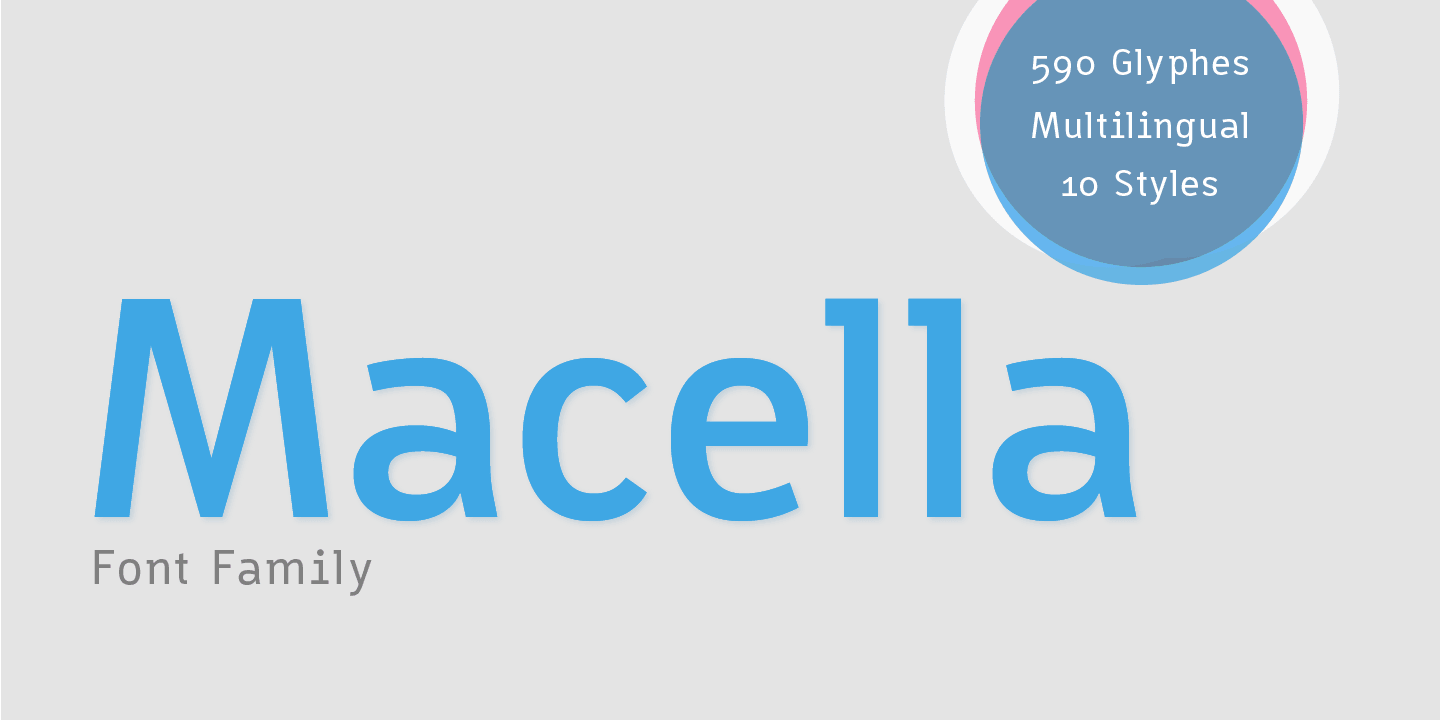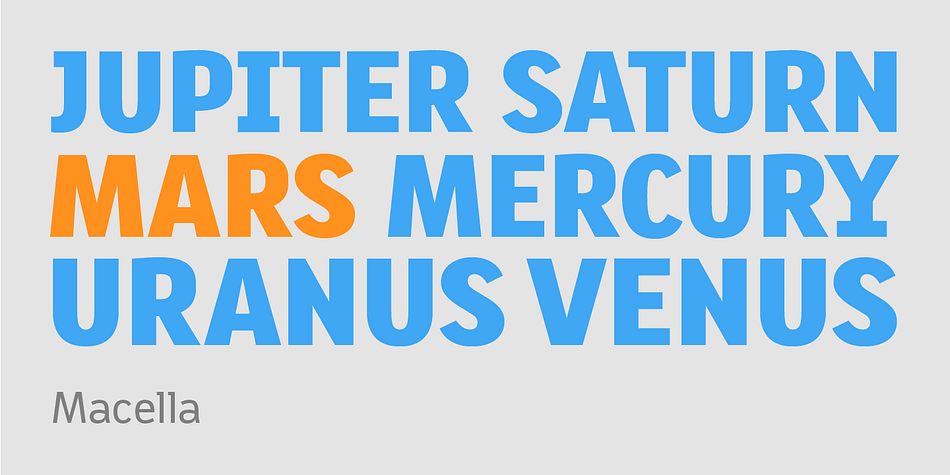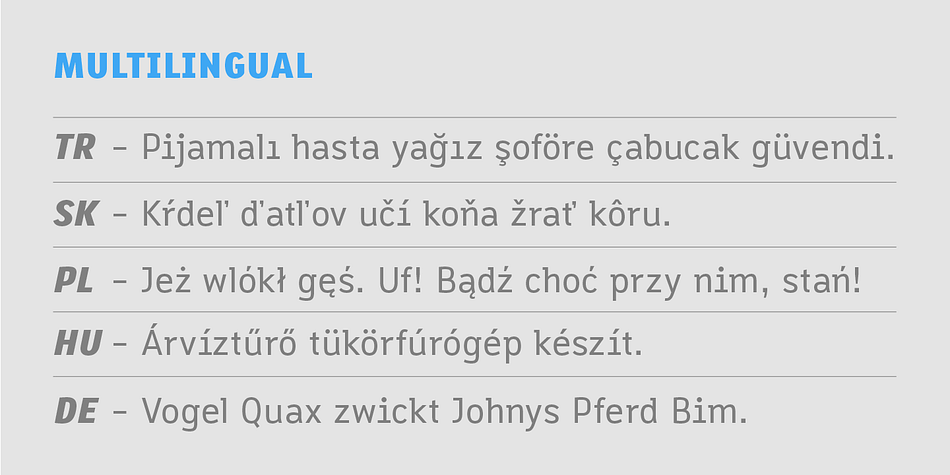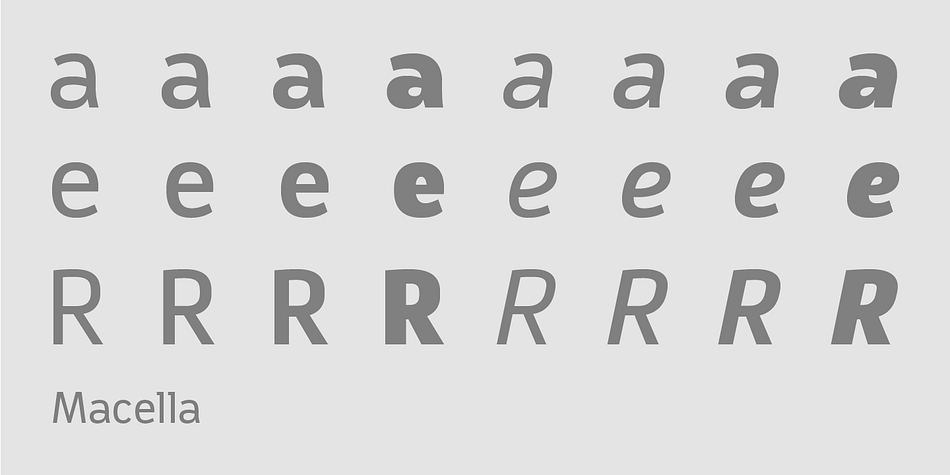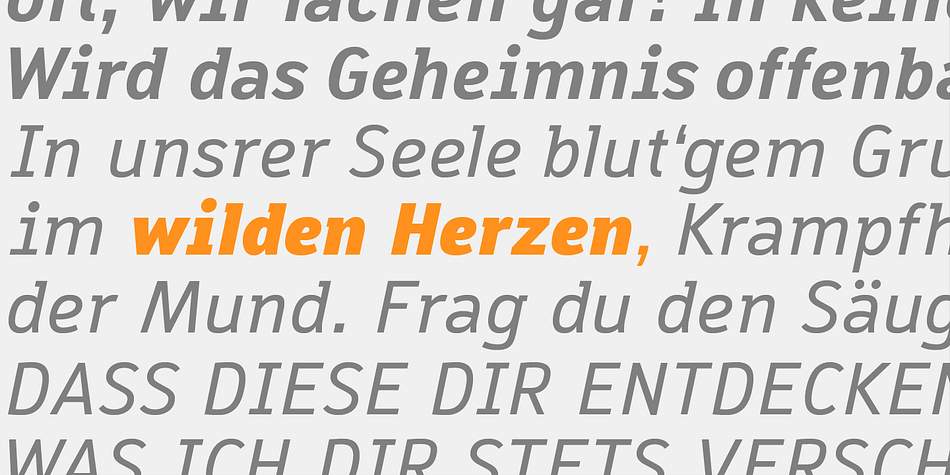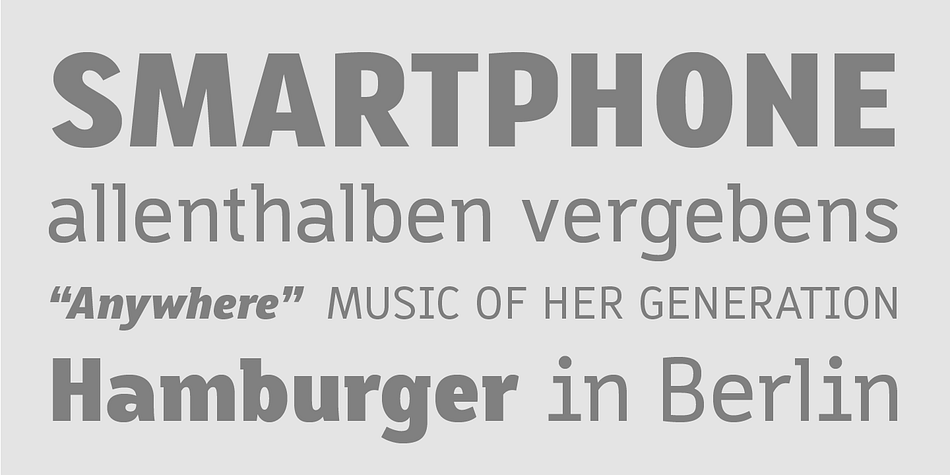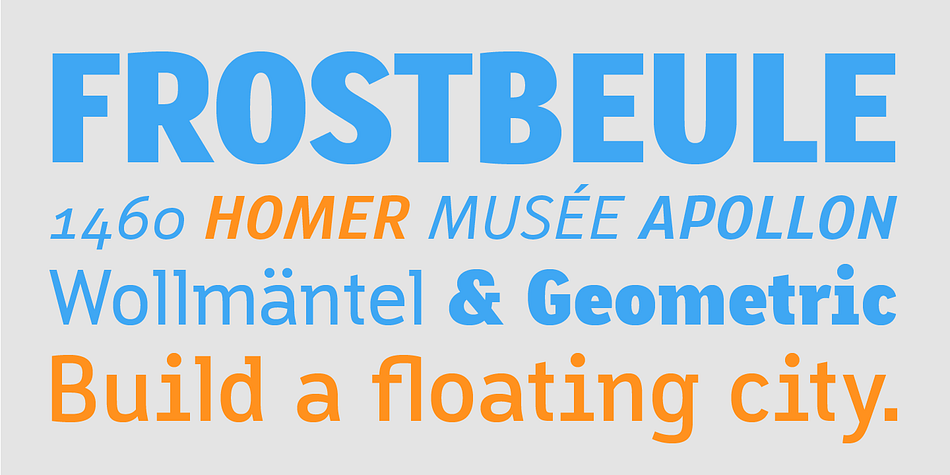
Designed by Johannes Hoffmann, Macella is a sans serif font family. This typeface has ten styles and was published by Johannes Hoffmann.
The Macella font family is the proportional version of the monospaced Vivala Code. Both families are well matched and have a comprehensive character set. The Sans Serif contains five weights with matching italics. It is suitable for headlines of all sizes, as well as variations of text lengths.